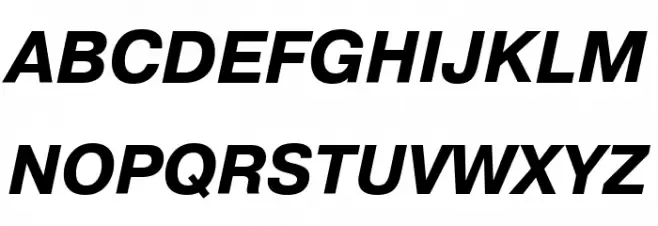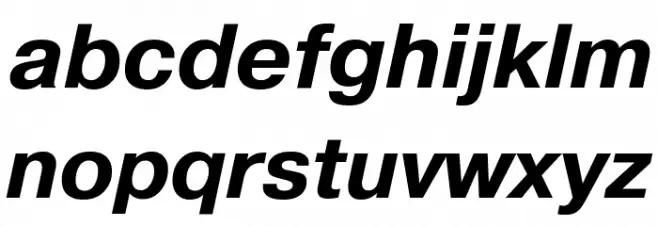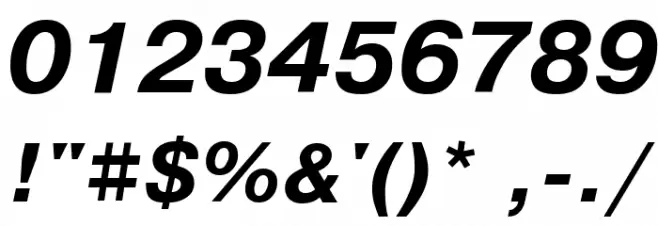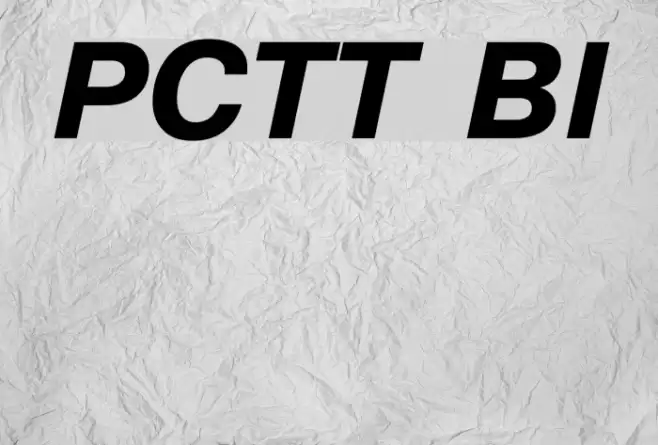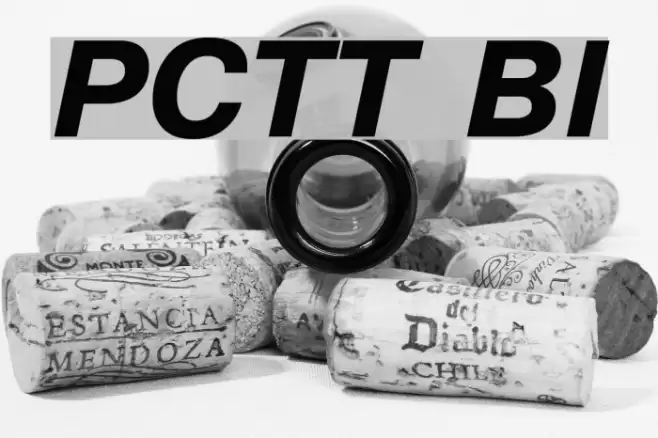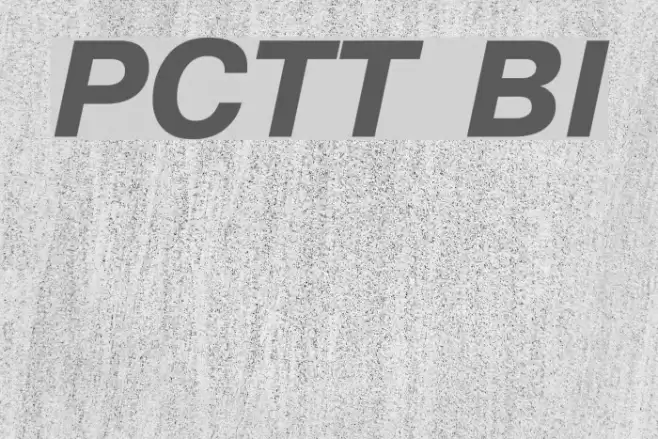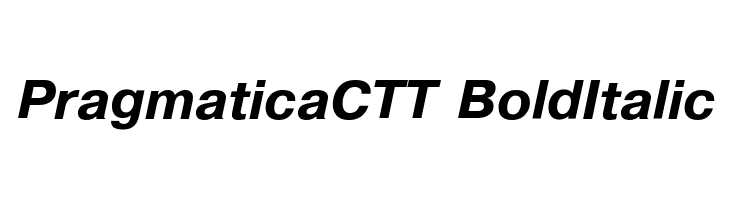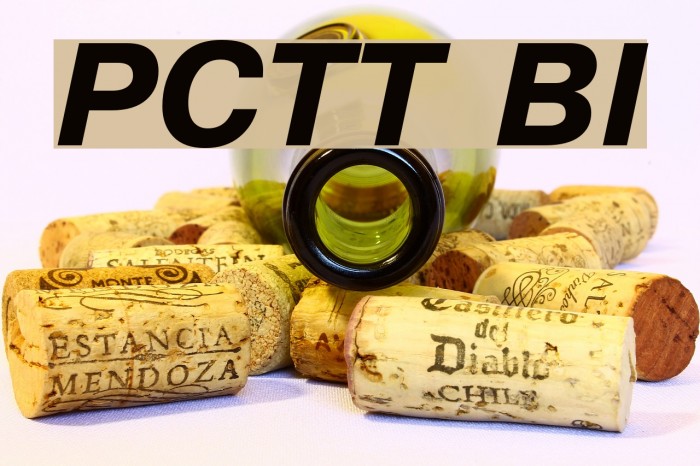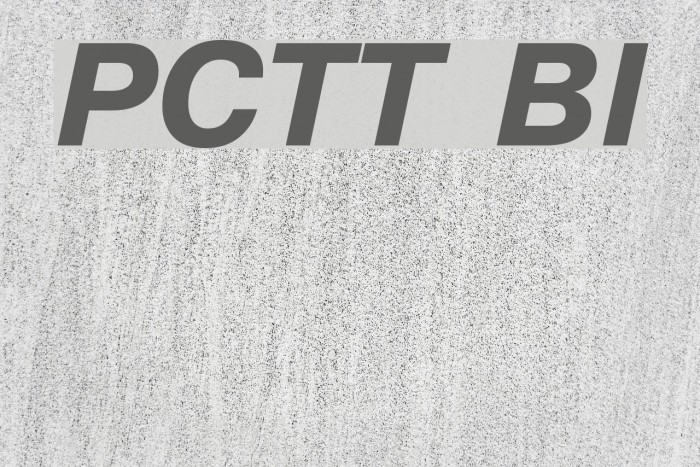
PragmaticaCTT BoldItalic
This font exhibits a bold and italicized style, characterized by its strong presence and dynamic slant. The uppercase and lowercase letters are well-proportioned, maintaining clarity and readability. The numerals are distinct and align well with the overall design, while the special characters are crafted to complement the alphabetic characters seamlessly. The font's boldness and italic nature give it a modern and assertive appearance, making it suitable for impactful design projects.
A bold and italicized font with a modern, assertive style.
- Proposed Projects: Ideal for branding, advertising, headlines, and any project requiring a strong visual impact.
- Use Case: Headlines, Logos, Advertising